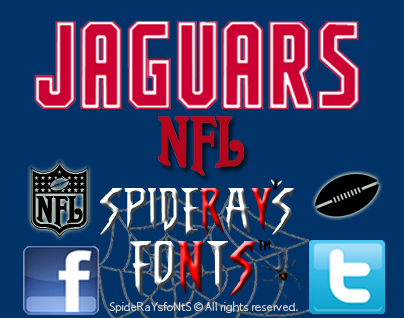
Note by SpideRaYsfoNtS | |
Created from an CAD image from a forum post request by Nick just for fun always wanted to create an outline font based on the college effect @ http://www.footballidiot.com/forum |